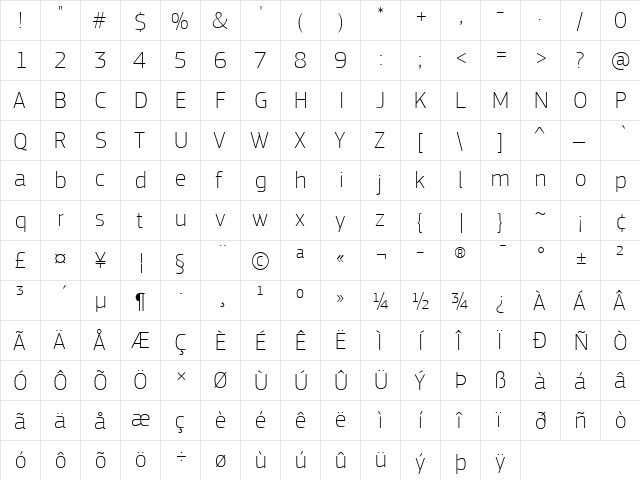
PF Square Sans Pro Thin
Thin · Parachute蠗orldwide Panos Vassiliou ·
Design Context for PF Square Sans Pro Typeface
PF Square Sans Pro takes a measured approach to typography — its balanced proportions and neutral character make it a reliable workhorse for both digital and print work. The delicate stroke weight brings airiness and refinement to layouts.